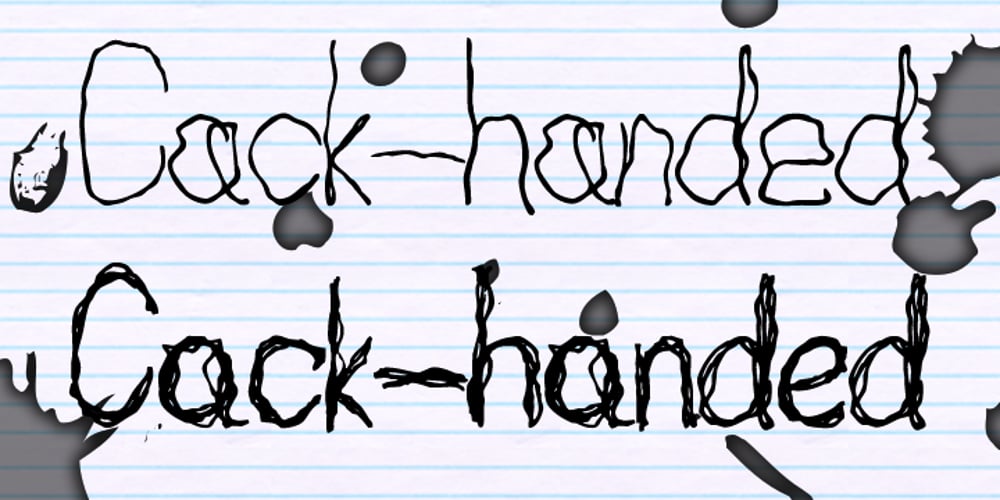
Cack-handed
Cack-handed font
Cack-handed Font Family was designed by Kerry Gunn and published by Kerry Colpus Designs. Cack-handed contains 4 styles and family package options. Cack-handed was created by writing with my left hand even though I am right handed.